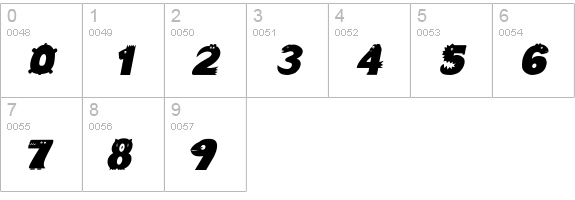
Crazy Creatures Bold-Italic Font Details
Crazy Creatures Bold-Italic is a strong, high-contrast, italic variant in the Crazy typeface family \xE2\x80\x94 well suited to headlines, attention-grabbing titles, and strong calls-to-action.
Introducing Crazy Creatures Bold-Italic font, a captivating and whimsical typeface that is sure to make your designs stand out! This unique font features bold and italic characteristics, giving your text a playful and energetic vibe. The Crazy Creatures font is perfect for creating eye-catching headlines, posters, invitations, and more. What's even better is that this fantastic font is available for free download at FontsMarket.com! Yes, you read that right - you can easily access this creative typeface without any cost. So why wait? Add a touch of fun and creativity to your projects with the Crazy Creatures Bold-Italic font today!